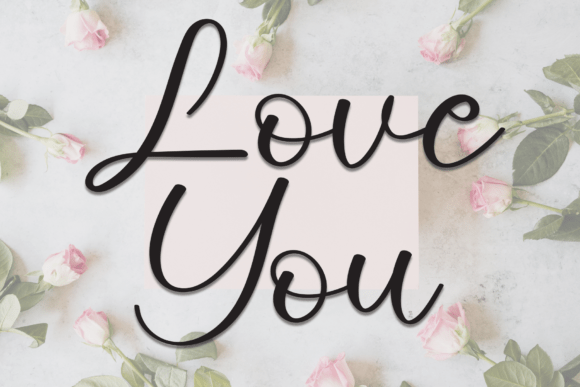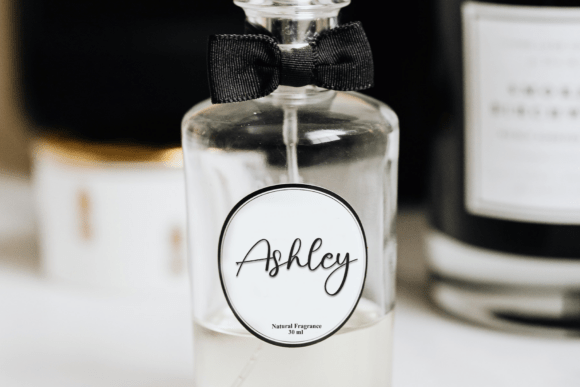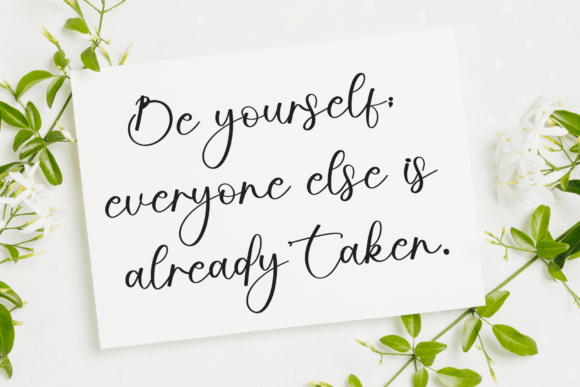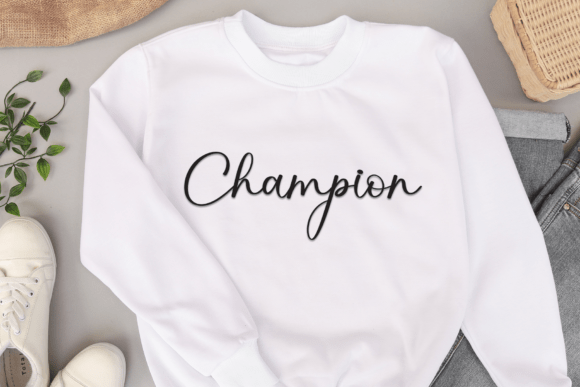
Love You Font
About the Love You Font
Unleash your creativity with Love You Font, a versatile font perfect for a wide range of applications. A confident script calligraphy font that balances modern style with smooth readability. It’s a perfect fit for logos, product packaging, fashion branding, and editorial design with flair.
Love You Font’s confident, yet smooth forms excel in headlines, short text blocks, and logos where its stylish character makes a strong statement. It’s ideal for branding projects targeting a sophisticated, modern audience, particularly in fashion, beauty, or luxury goods. However, its script nature makes it less suitable for body text or UI elements requiring high legibility at smaller sizes.
Pairing it with a clean sans-serif like Montserrat or a geometric sans-serif like Futura provides a contemporary contrast, balancing the script’s fluidity. For a warmer feel, consider a classic serif like Garamond or a more modern serif like Playfair Display.
The font projects a sophisticated, romantic, and slightly bold personality, best suited for brands that wish to communicate elegance and a touch of playful confidence.